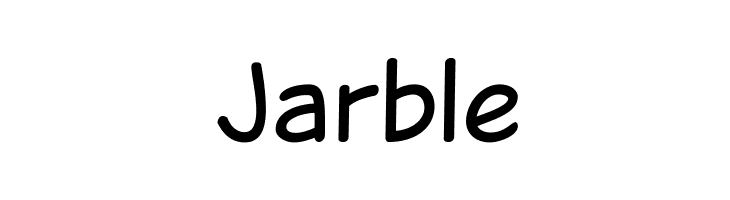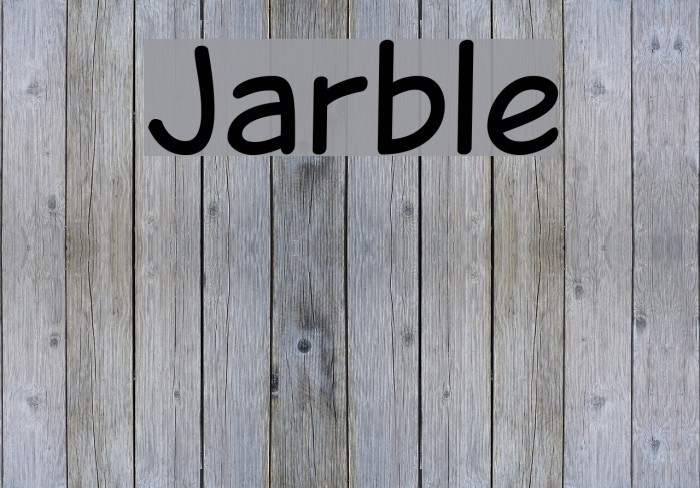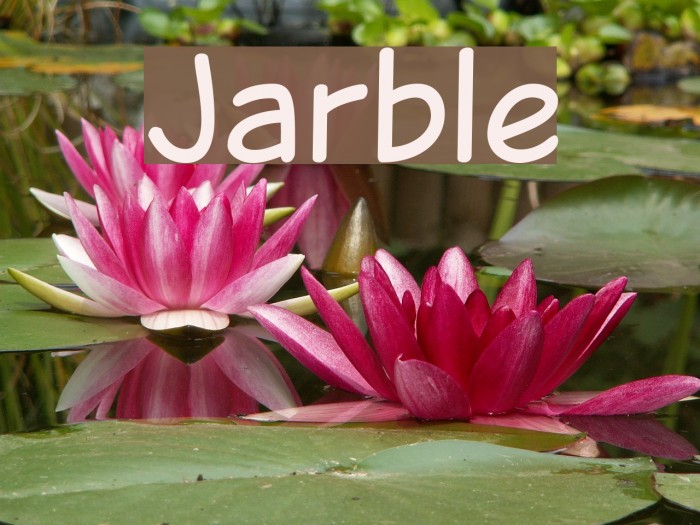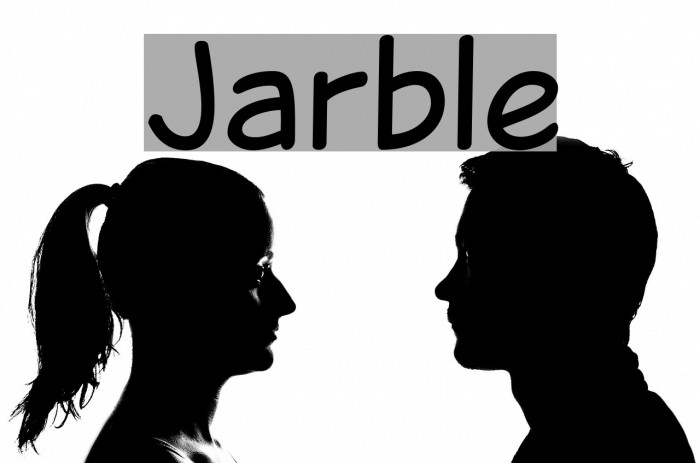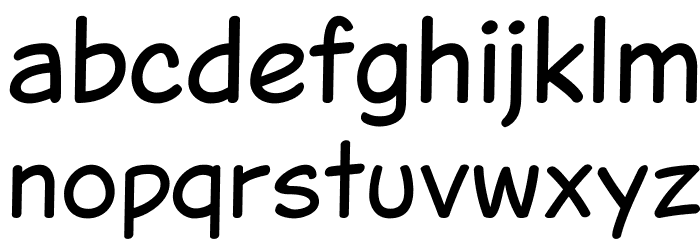
Jarble Font
Jarble Description
This font exudes a playful and informal vibe with its rounded, slightly irregular strokes. The characters are bold and have a hand-drawn quality, making them appear friendly and approachable. The uppercase and lowercase letters maintain a consistent style, with a slight slant that adds to the casual feel. The numerals are clear and easy to read, matching the overall aesthetic of the alphabet. Special characters are well-integrated, maintaining the same whimsical style. This font is perfect for projects that require a touch of personality and warmth.
A playful, hand-drawn font with rounded, informal strokes from Uncategorized fonts.
- Proposed Projects: Ideal for children's books, casual branding, greeting cards, and playful posters.
- Overall Style: Casual, Playful
- Use Case: Headlines, Logos, Informal Text